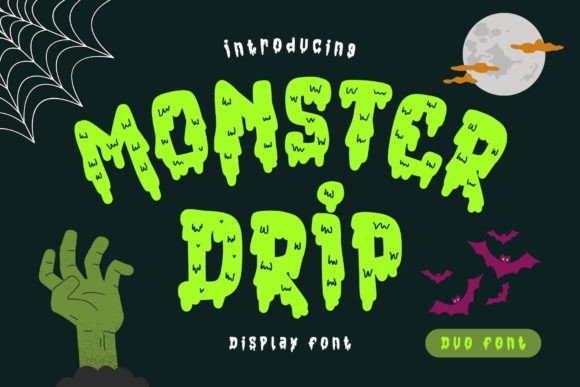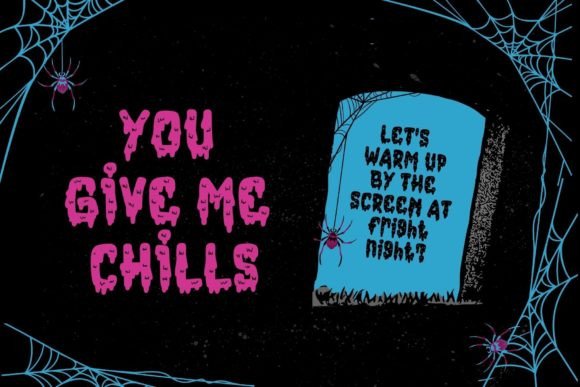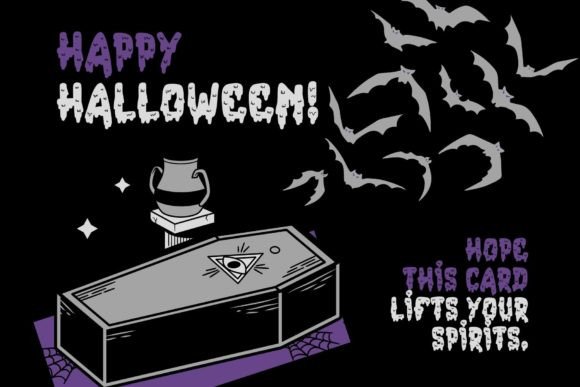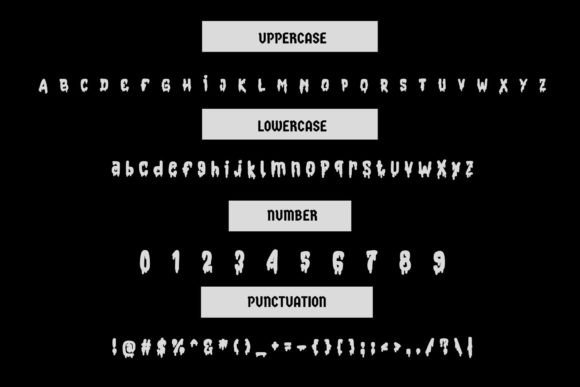
Monster Drip Font
About the Monster Drip Font
Experience the unique personality of Monster Drip Font, a font designed for impact. Monster Drip is a cool Halloween decorative or display font. The additional elements of blood dripping and bones-like letters make an ambiance of horror Invitations, postcards, posters, and headings for a Halloween event; this font can be used in every setting.
Monster Drip excels as a display font for Halloween-themed projects, particularly in headlines, posters, and invitations where its dramatic style creates a strong visual impact. It’s ideal for branding related to horror, gothic aesthetics, or spooky events. However, its highly decorative nature makes it unsuitable for body text or UI elements; the dripping effect would be distracting and hinder readability in extended use.
This font’s bold and slightly aggressive personality pairs well with simpler, more legible fonts. Consider pairing it with a clean sans-serif like Open Sans for contrast, or a classic serif like Garamond for a touch of elegance that tempers its horror aesthetic. A geometric sans-serif could also work to provide a modern counterpoint to Monster Drip’s more organic forms.
Avoid using Monster Drip in situations requiring high readability, such as lengthy website copy or product packaging details. Its strength lies in its visual impact as a statement piece.
Monster Drip Font Usage Examples
Monster Drip Font Example